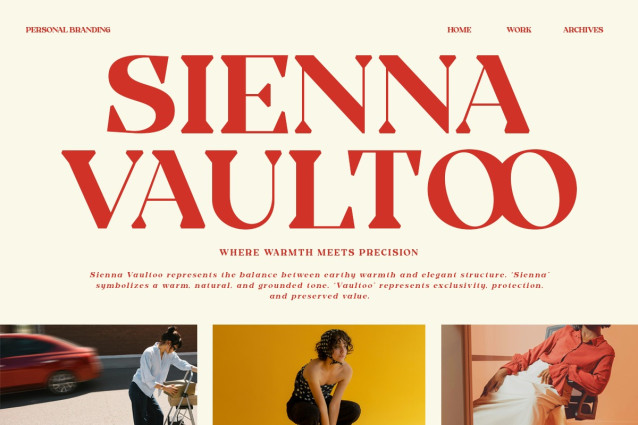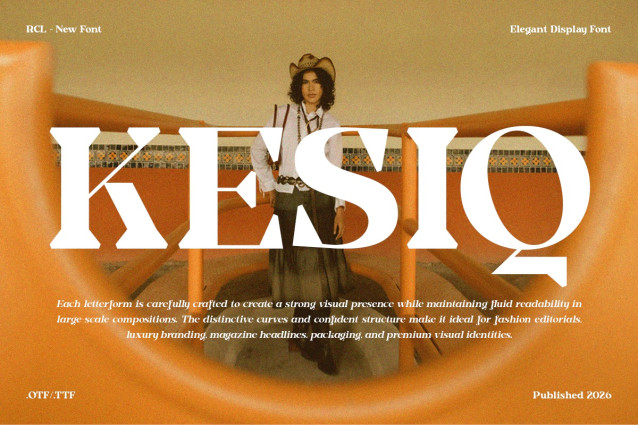
Kesiq Font
Kesiq Font is a modern serif display font that blends sculptural elegance with contemporary clarity. Designed with high contrast and distinctive curves, Kesiq brings sophistication and authority to every composition. Perfect for luxury logos, fashion campaigns, minimalist packaging, and editorial layouts, Kesiq helps brands communicate refinement and confidence through typography. Whether used for bold headlines or upscale identity systems, this typeface delivers timeless beauty with modern precision.